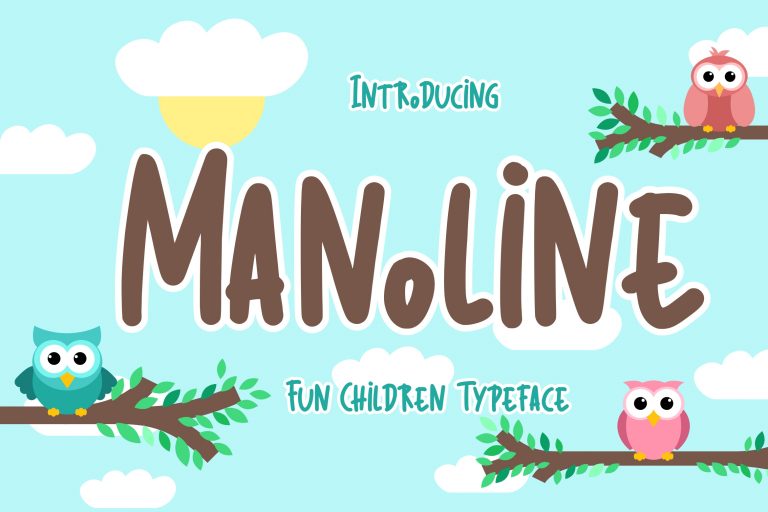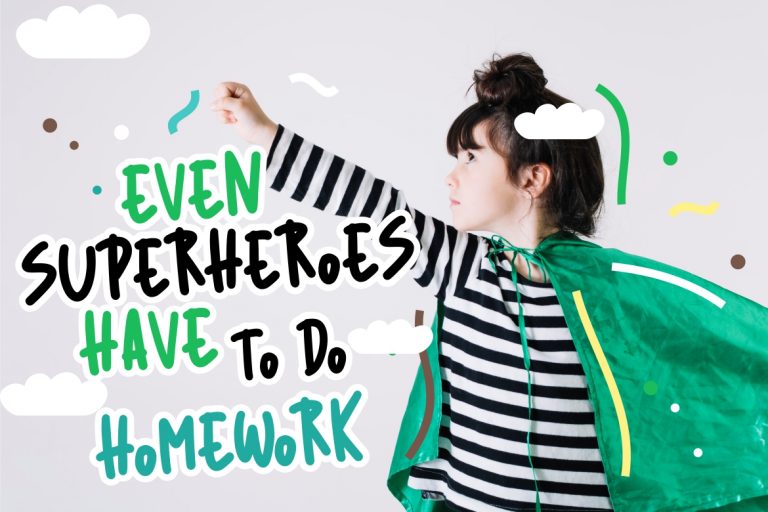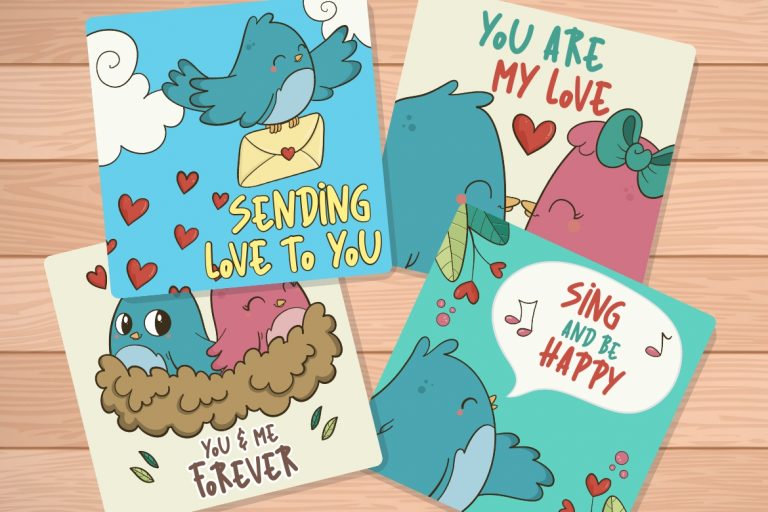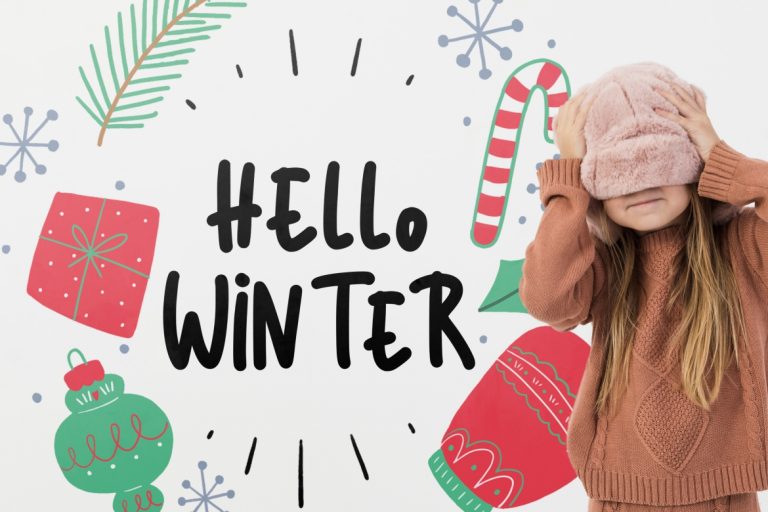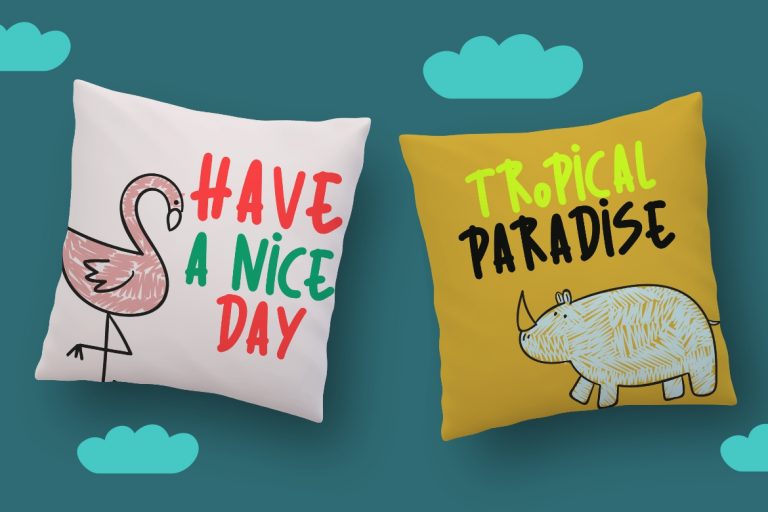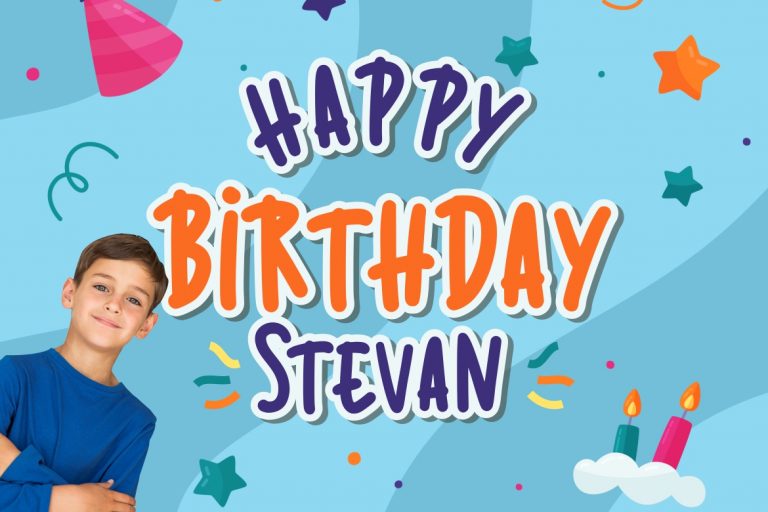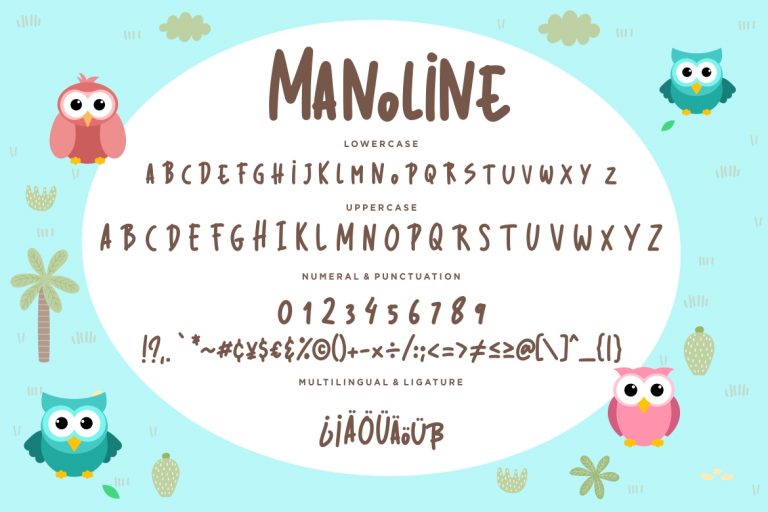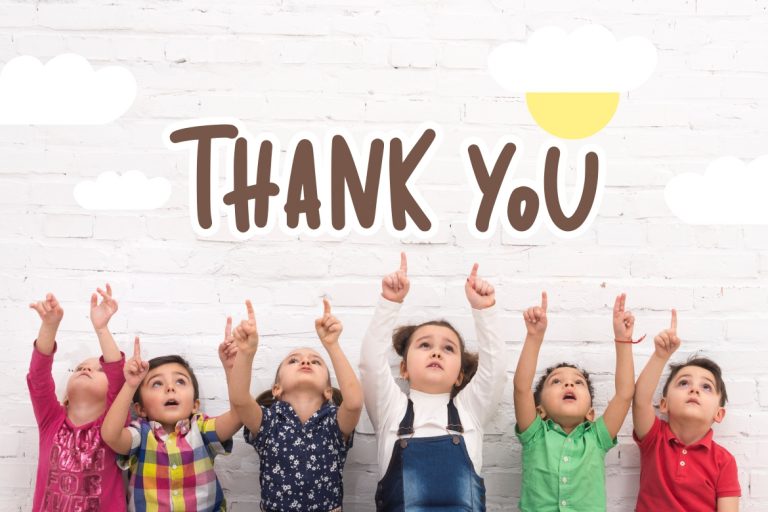
Manoline Fun Children Typeface
Manoline is fun monoline font which suitable to use for children related occasion.
- Fonts include multilingual support for; ä ö ü Ä Ö Ü ß ¿ ¡